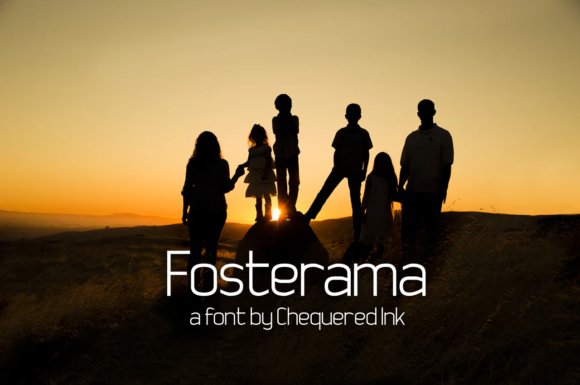
You know that moment when you’re working on a design and everything just clicks? You’ve got the perfect idea, the perfect colors, and the perfect font. That’s exactly what we’re talking about today – a font that can take your creations to the next level. Say hello to the Fosterama Font, a sleek, modern, sans-serif font that’s sure to make a statement.
Designed to stand out from the crowd, the Fosterama Font is perfect for designers who want to add a touch of sophistication and elegance to their work. With its unique lines and curves, this font is a game-changer for anyone looking to elevate their design game. Whether you’re a seasoned pro or just starting out, the Fosterama Font is a valuable addition to any designer’s toolkit.
Fosterama Font Key Features
- Unique Characteristics: Fosterama Font features a distinctive, hand-drawn feel with a mix of modern and vintage elements, making it perfect for creating eye-catching and unique designs.
Fosterama Font Review
I recently had the chance to work with the Fosterama font, and I must say it’s a unique and intriguing addition to any design project. ✨ One of the things I appreciate most about this font is its modern, elegant aesthetic, making it perfect for corporate branding, websites, and high-end publications. The bold, sans-serif design gives it a sleek and sophisticated feel that’s hard to resist.
Another advantage of Fosterama is its versatility. It’s available in multiple weights and styles, allowing you to create a cohesive visual identity across different platforms. Whether you’re looking for a header font or a body text font, Fosterama has got you covered. ✨ Its excellent legibility ensures that your content is easy to read, even at smaller font sizes.
- ⚠️ Limited character set: Fosterama’s character set is not as extensive as some other fonts, which may limit its use for certain languages or special characters.
- ⚠️ Limited script options: While Fosterama has a range of weights and styles, it lacks a dedicated script font, which may make it less suitable for creative or artistic projects.
Overall, I think Fosterama is a great addition to any designer’s toolkit. While it may have some limitations, its unique aesthetic and versatility make it a solid choice for a wide range of projects. With a little creativity and experimentation, you can unlock the full potential of this font and create some truly amazing designs.
The Fosterama Font is ideal for creating modern and clean typography in various design applications, including business cards, logos, presentations, and documents. It is also suitable for creating eye-catching social media graphics and advertisements.